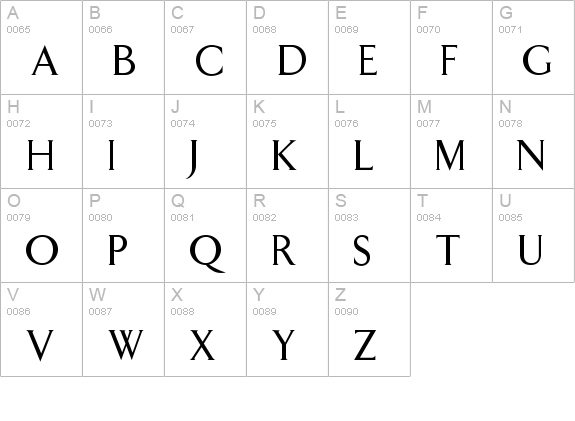
TArrow Font Details
Introducing TArrow, a sleek and sophisticated font that effortlessly combines elegance with modernity. This font is the perfect choice for those seeking a versatile typeface that can be used across a variety of design projects. With its clean lines and subtle curves, TArrow exudes a sense of professionalism, making it ideal for both print and digital applications. But what truly sets TArrow apart is its unique ability to capture attention and command the reader's gaze. Each letter is meticulously crafted to create a harmonious balance between form and function, resulting in a font that is not only visually appealing but also highly legible. Whether used for headlines, body text, or even logos, TArrow effortlessly communicates your message with clarity and style. And the best part? TArrow is available for free! That's right, you can easily download this remarkable font at FontsMarket.com, making it accessible to designers, artists, and typographers alike. Say goodbye to restrictive licensing fees and hello to endless creative possibilities. TArrow empowers you to bring your vision to life, without breaking the bank. So why wait? Unlock the full potential of your designs with TArrow. Download this extraordinary font today and experience the freedom of artistic expression like never before. Let TArrow become your go-to choice for all your typographic needs, and witness the transformative power it brings to your projects.